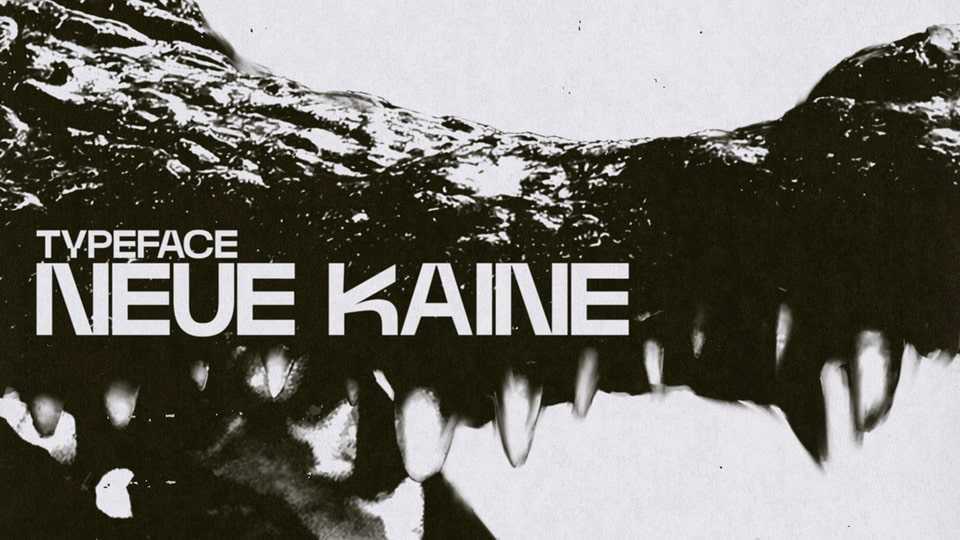
Download Neue Kaine font, a modern and industrial sans serif typeface. Neue Kaine font features clean lines, geometric precision, and a minimalist elegance that makes it an ideal choice for a wide range of modern applications.
Designer: Oszkár Sztanyó